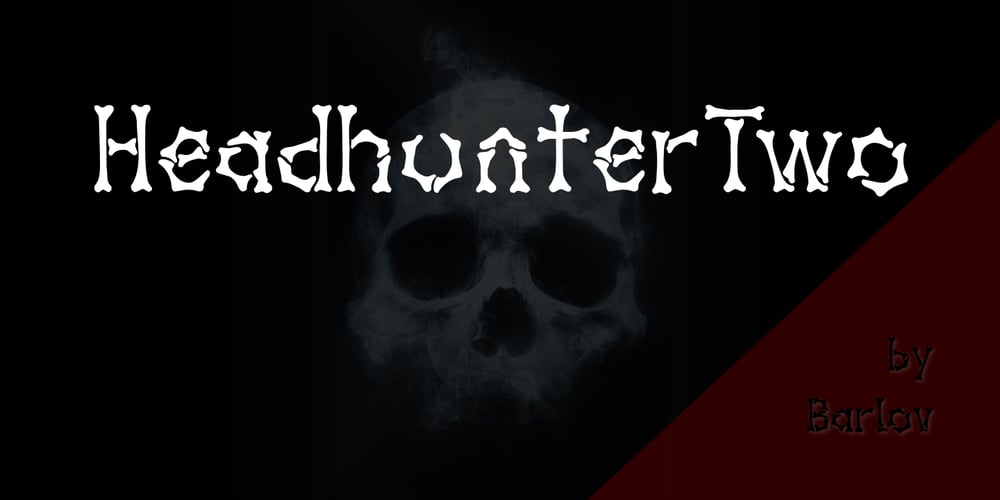
Headhunter Two Font Family was designed by Joseph Morris and published by Barlov. Headhunter Two contains 1 styles and family package options. The original Headhunter shareware font was created in ©1992 by the famous D. Rakowski. It consisted of 63 unique skeletal Glyphs, including Capital A-Z, and a few bone symbols, but lacked lowercase and numerals. He has since abandoned his fonts to pursue other things. (You can download it from FontSquirrel for free.) I’ve always enjoyed this limited Halloween font, but its incompleteness had to be rectified; thus I took it upon myself to delve slightly into the world of typography, resulting in the birth of HeadhunterTwo. I’ve slightly reworked his original contribution and “fleshed out” more of the font than necessary. As of this writing, it consists of 777+ Glyphs and passes Underware’s compatibility test for Latin Plus (Supporting 219 Latin based languages, which are spoken in 212 countries.)